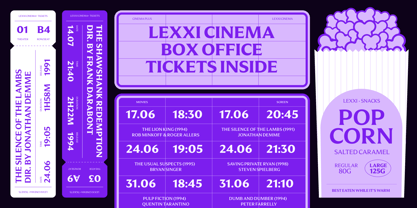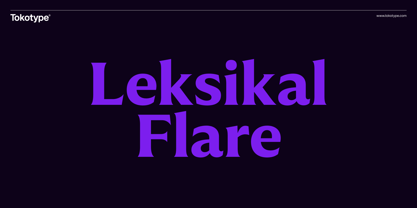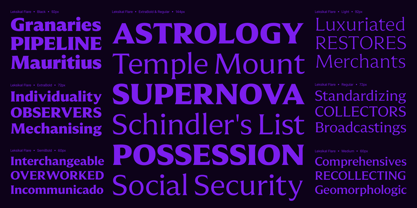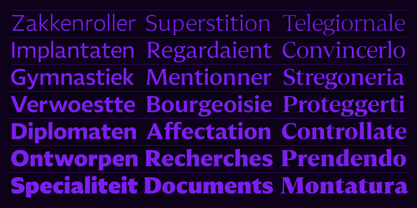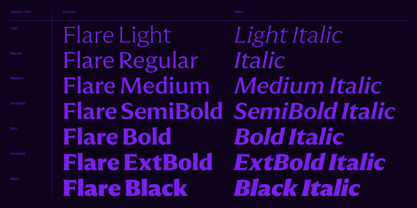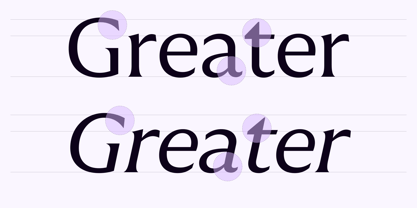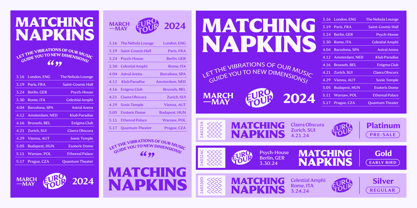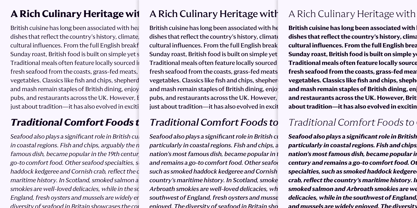
Leksikal Flare
The Leksikal Flare Font Family was designed by Gumpita Rahayu and published by Tokotype. Leksikal Flare contains 14 styles and family package options. More about this family
Between the extremes of its sans and serif forms, Leksikal introduces a flare style, offering a fluid, transitional character. This middle ground, shaped by the "CASL" (casual) axis, softens rigid sans forms with subtle stroke variation, creating a refined yet approachable look. The result is a Leksikal Flare that adapts effortlessly to branding, editorial, and expressive design needs.